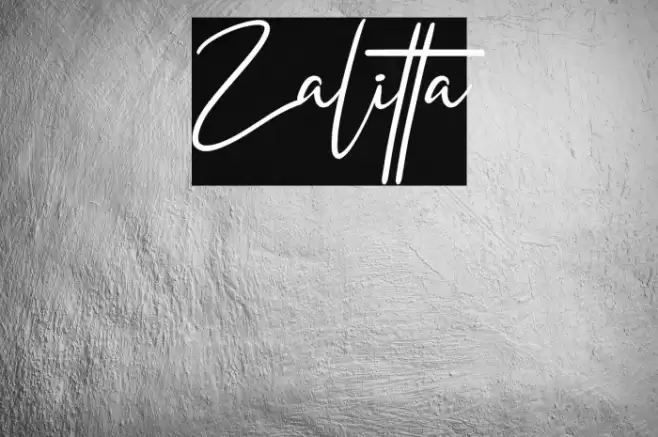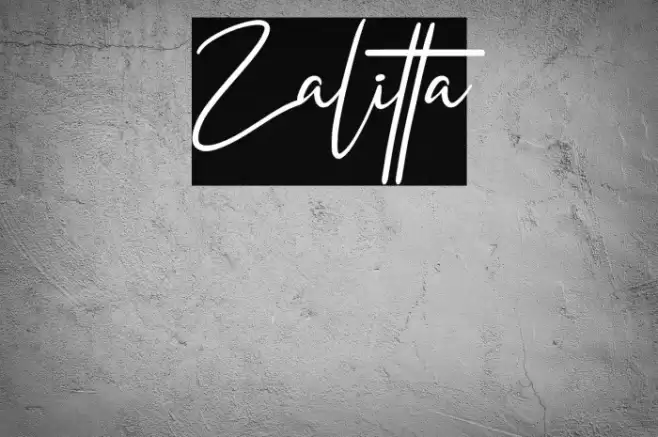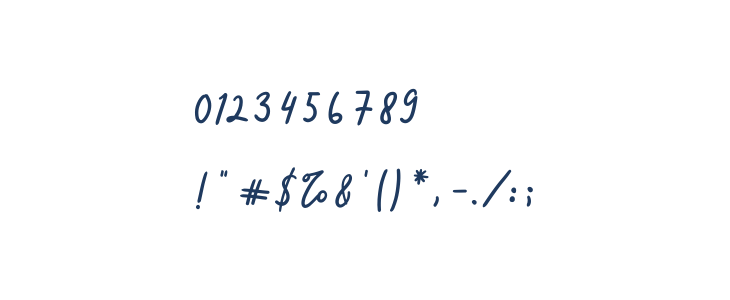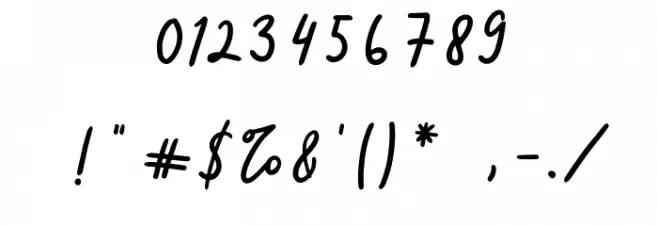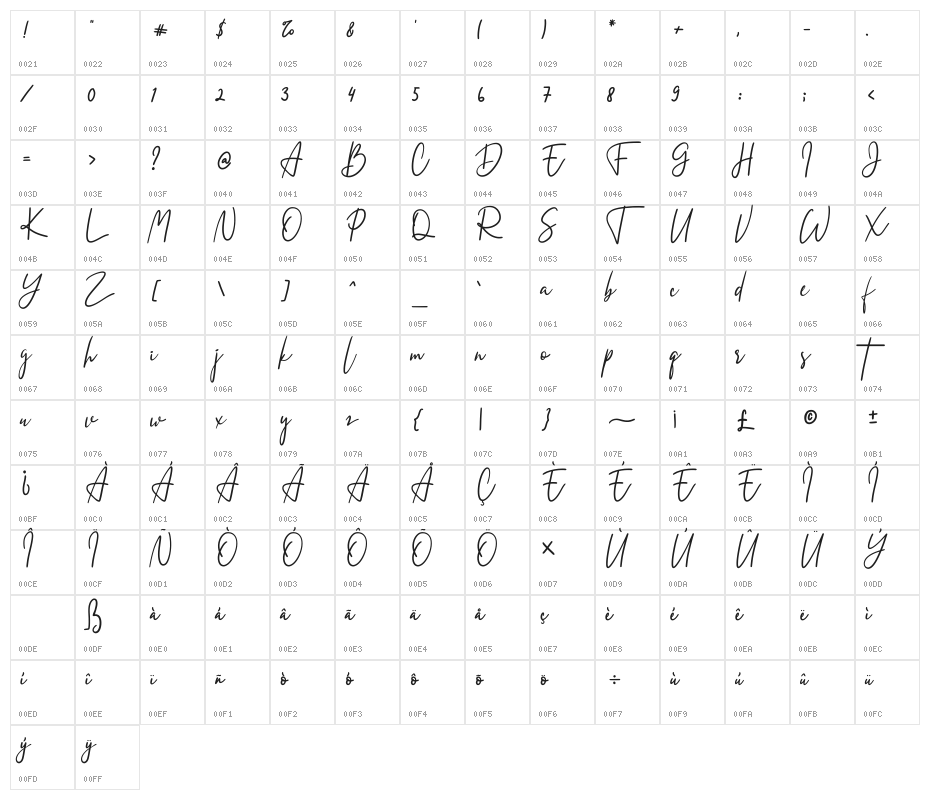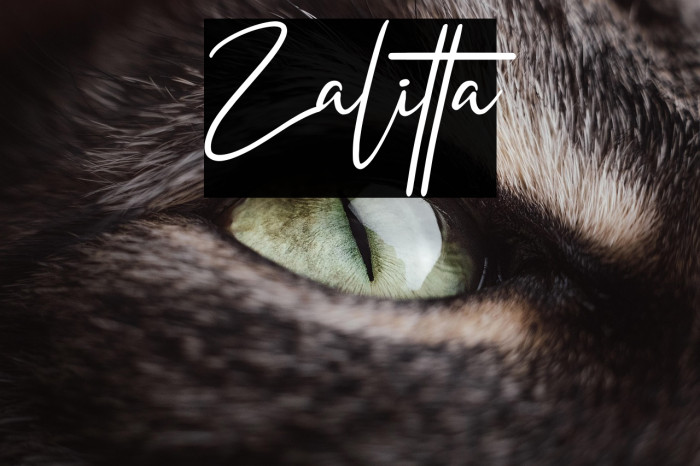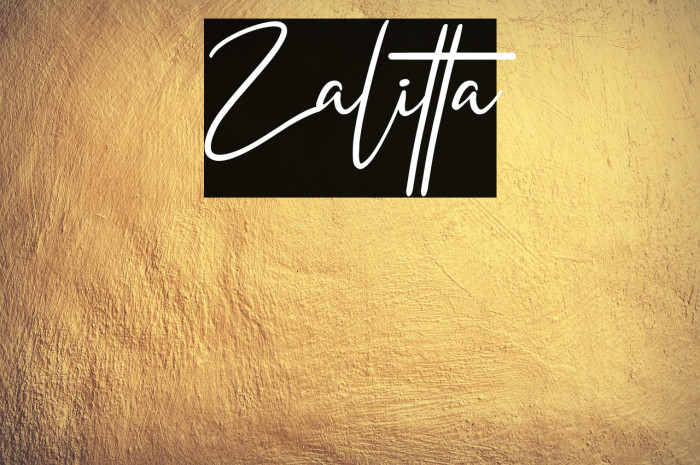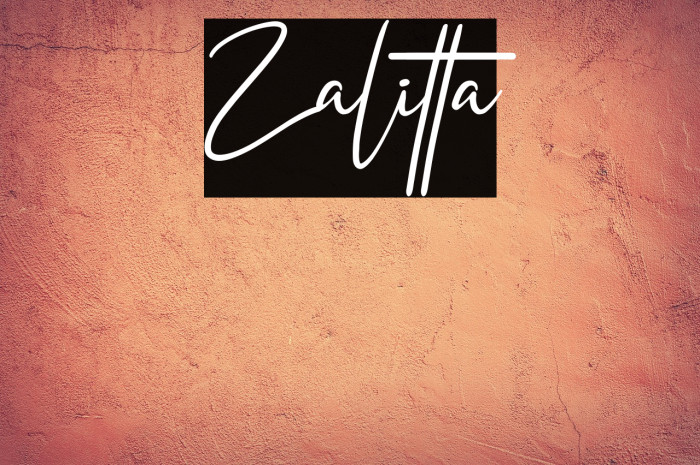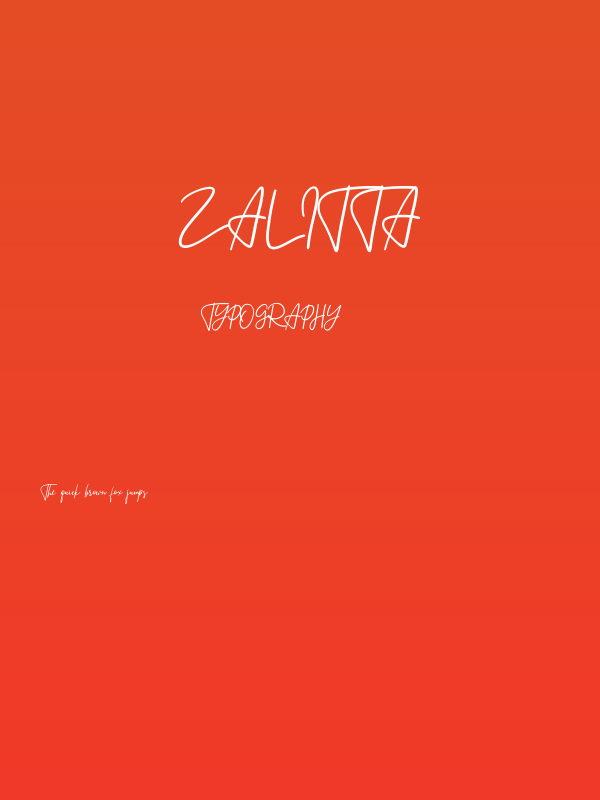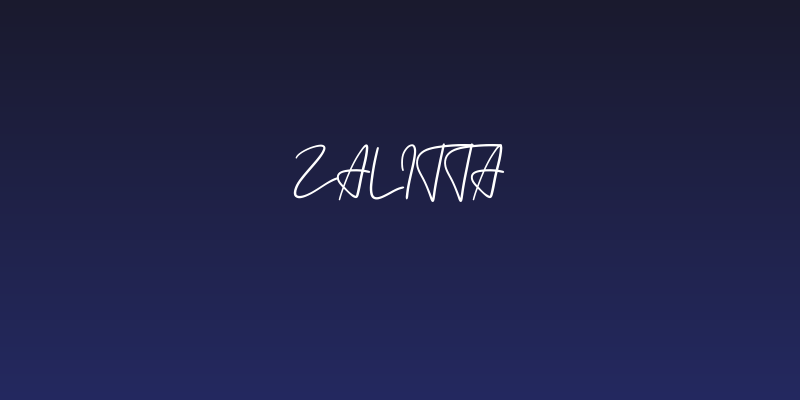
Zalitta Font
Zalitta Description
This font features an elegant and flowing script style that mimics natural handwriting. The characters are connected with smooth, continuous strokes, giving it a fluid and dynamic appearance. The uppercase letters are tall and graceful, while the lowercase letters maintain a consistent flow, enhancing readability. The numbers and special characters are designed to match the overall aesthetic, with a playful yet sophisticated touch. This font exudes a sense of personal touch and creativity, making it suitable for projects that require a handwritten feel.
A flowing, elegant script font with a natural handwriting style from Regular fonts.
- Font: Zalitta
- Proposed Projects: Ideal for wedding invitations, greeting cards, personal branding, and creative projects that require a personal touch.
- Use Case: Logos, Invitations, Personal Branding